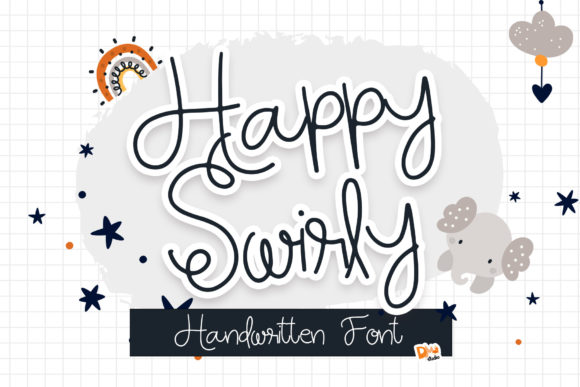
Unleash the playful spirit of your designs with Happy Swirly, the enchanting script font that evokes joy and whimsy. Its thin, elegant strokes dance across your pages, adding a touch of delicate charm to every word. Perfect for fun flyers, this font brings life to your creations, making them stand out with its unique style.
Happy Swirly is not just a font, it's an invitation to let your creativity soar. Imagine the delight of your readers as they embark on a journey through your words, guided by this captivating font. Its graceful curves and playful loops create an aura of merriments, leaving an unforgettable impression on all who behold it.
Whether you're crafting invitations for a special occasion, designing posters for a community event, or adding a touch of whimsy to your social media posts, Happy Swirly is the perfect companion. Its versatility knows no bounds, allowing you to explore endless possibilities and bring your ideas to life.
So, embrace the magic of Happy Swirly and let your designs shine with joy and wonder. Dive into a world of creativity where words dance and smiles bloom with every stroke. Make your designs irresistibly charming and leave a lasting impression on your audience.